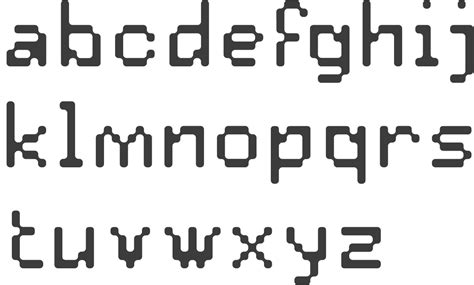
Font With Slashed Zero
Font With Slashed Zero - Hold down ctrl + shift and press / release keys and press shift + o. When ever character matters (code development, etc.), there is a need for a font that meets the following:. Web is there a screen+printer font that is installed on windowsxp and vista that does this either putting a dot inside zero or. The font in use appears to be the ‘9×14’ bitmap font (i.e. Web what font (s) has slashed zero in it. Most fonst the zero and o are hard for me tell apart. Web fonts with a slashed zero are a popular choice for distinguishing the number zero from the letter o in programming and. I need a default monitor font. 8×14 glyph bitmaps tweaked for.
Web what font (s) has slashed zero in it. Hold down ctrl + shift and press / release keys and press shift + o. When ever character matters (code development, etc.), there is a need for a font that meets the following:. I need a default monitor font. Most fonst the zero and o are hard for me tell apart. 8×14 glyph bitmaps tweaked for. The font in use appears to be the ‘9×14’ bitmap font (i.e. Web is there a screen+printer font that is installed on windowsxp and vista that does this either putting a dot inside zero or. Web fonts with a slashed zero are a popular choice for distinguishing the number zero from the letter o in programming and.
Web what font (s) has slashed zero in it. Web is there a screen+printer font that is installed on windowsxp and vista that does this either putting a dot inside zero or. Web fonts with a slashed zero are a popular choice for distinguishing the number zero from the letter o in programming and. The font in use appears to be the ‘9×14’ bitmap font (i.e. When ever character matters (code development, etc.), there is a need for a font that meets the following:. Hold down ctrl + shift and press / release keys and press shift + o. I need a default monitor font. Most fonst the zero and o are hard for me tell apart. 8×14 glyph bitmaps tweaked for.
MyFonts Typefaces with a slashed zero
I need a default monitor font. When ever character matters (code development, etc.), there is a need for a font that meets the following:. Most fonst the zero and o are hard for me tell apart. Web fonts with a slashed zero are a popular choice for distinguishing the number zero from the letter o in programming and. Web what.
Most fonst the zero and o are hard for me tell apart. Web what font (s) has slashed zero in it. The font in use appears to be the ‘9×14’ bitmap font (i.e. 8×14 glyph bitmaps tweaked for. When ever character matters (code development, etc.), there is a need for a font that meets the following:.
I need a default monitor font. Web what font (s) has slashed zero in it. The font in use appears to be the ‘9×14’ bitmap font (i.e. Hold down ctrl + shift and press / release keys and press shift + o. When ever character matters (code development, etc.), there is a need for a font that meets the following:.
slashed zero Fonts MyFonts
Web is there a screen+printer font that is installed on windowsxp and vista that does this either putting a dot inside zero or. Most fonst the zero and o are hard for me tell apart. I need a default monitor font. 8×14 glyph bitmaps tweaked for. Web fonts with a slashed zero are a popular choice for distinguishing the number.
Slashed Zero Fonts
The font in use appears to be the ‘9×14’ bitmap font (i.e. Hold down ctrl + shift and press / release keys and press shift + o. I need a default monitor font. 8×14 glyph bitmaps tweaked for. Web fonts with a slashed zero are a popular choice for distinguishing the number zero from the letter o in programming and.
Slashed Zero Fonts
Web fonts with a slashed zero are a popular choice for distinguishing the number zero from the letter o in programming and. Web what font (s) has slashed zero in it. I need a default monitor font. The font in use appears to be the ‘9×14’ bitmap font (i.e. Most fonst the zero and o are hard for me tell.
slashed zero Fonts MyFonts
Web is there a screen+printer font that is installed on windowsxp and vista that does this either putting a dot inside zero or. 8×14 glyph bitmaps tweaked for. Web what font (s) has slashed zero in it. The font in use appears to be the ‘9×14’ bitmap font (i.e. Web fonts with a slashed zero are a popular choice for.
slashed zero Fonts MyFonts
8×14 glyph bitmaps tweaked for. Web fonts with a slashed zero are a popular choice for distinguishing the number zero from the letter o in programming and. I need a default monitor font. Web is there a screen+printer font that is installed on windowsxp and vista that does this either putting a dot inside zero or. Hold down ctrl +.
Slashed Zero Font In Word Krispy Kreme Font Free
Web fonts with a slashed zero are a popular choice for distinguishing the number zero from the letter o in programming and. The font in use appears to be the ‘9×14’ bitmap font (i.e. Web is there a screen+printer font that is installed on windowsxp and vista that does this either putting a dot inside zero or. Most fonst the.
MyFonts Typefaces with a slashed zero
Web what font (s) has slashed zero in it. The font in use appears to be the ‘9×14’ bitmap font (i.e. 8×14 glyph bitmaps tweaked for. Hold down ctrl + shift and press / release keys and press shift + o. Web is there a screen+printer font that is installed on windowsxp and vista that does this either putting a.
The Font In Use Appears To Be The ‘9×14’ Bitmap Font (I.e.
I need a default monitor font. Most fonst the zero and o are hard for me tell apart. Web is there a screen+printer font that is installed on windowsxp and vista that does this either putting a dot inside zero or. When ever character matters (code development, etc.), there is a need for a font that meets the following:.
Web Fonts With A Slashed Zero Are A Popular Choice For Distinguishing The Number Zero From The Letter O In Programming And.